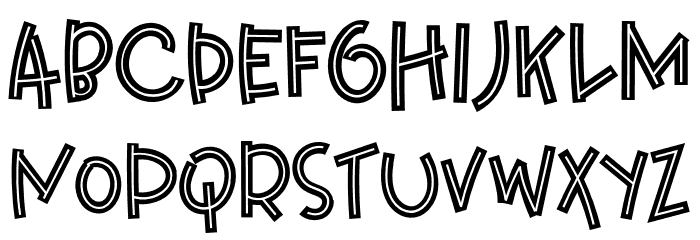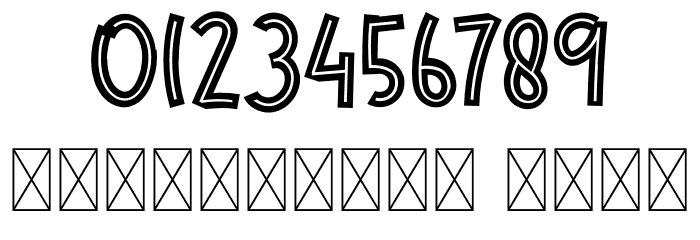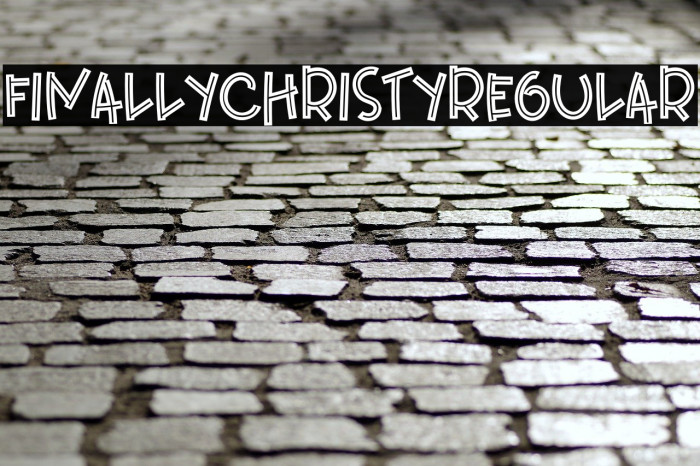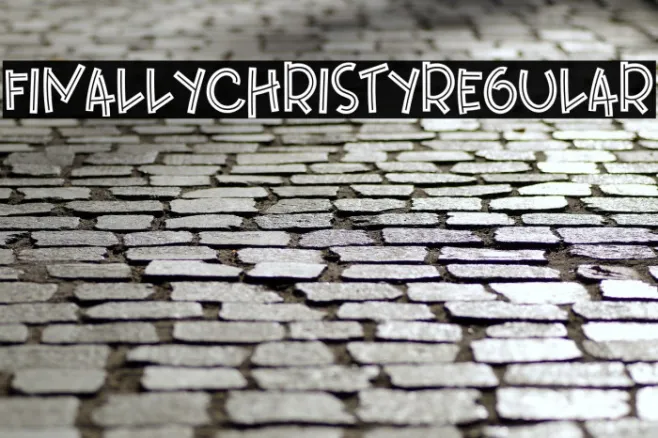
FinallyChristyRegular Font
This font features a playful and bold design, characterized by its thick, uneven strokes and quirky, hand-drawn appearance. The letters have a slightly irregular shape, giving them a whimsical and informal feel. The uppercase and lowercase letters maintain a consistent style, with rounded edges and a sense of movement. Numbers and special characters follow the same playful aesthetic, making the font suitable for creative and fun projects. Its unique style stands out, making it ideal for attention-grabbing designs.
A playful, hand-drawn font with bold, uneven strokes and a whimsical style.
- Proposed Projects: Ideal for children's books, comic strips, playful branding, and creative posters.
- Overall Style: Playful, Whimsical, Informal
- Use Case: Headlines, Posters, Branding